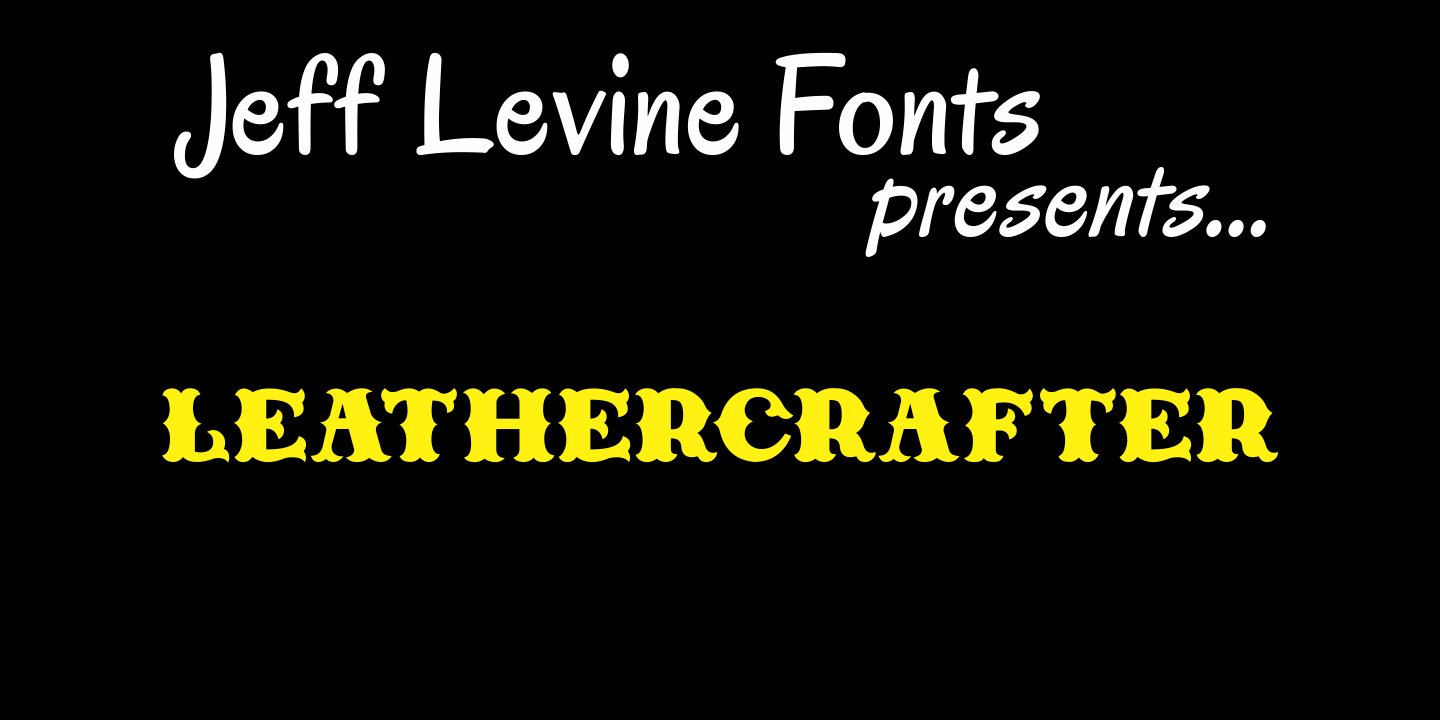
Leathercrafter
A popular hobby in the 1950s and 1960s was creating your own wallets, belts and other items from leather do-it-yourself kits. Stamped or carved initials, names or phrases were often added to the leather with special tools and templates - many featuring a Western-styled alphabet with a hand-lettered look. Leathercrafter JNL recreates that same look in a digital font format, complete with the unusual and contrasting letter shapes.